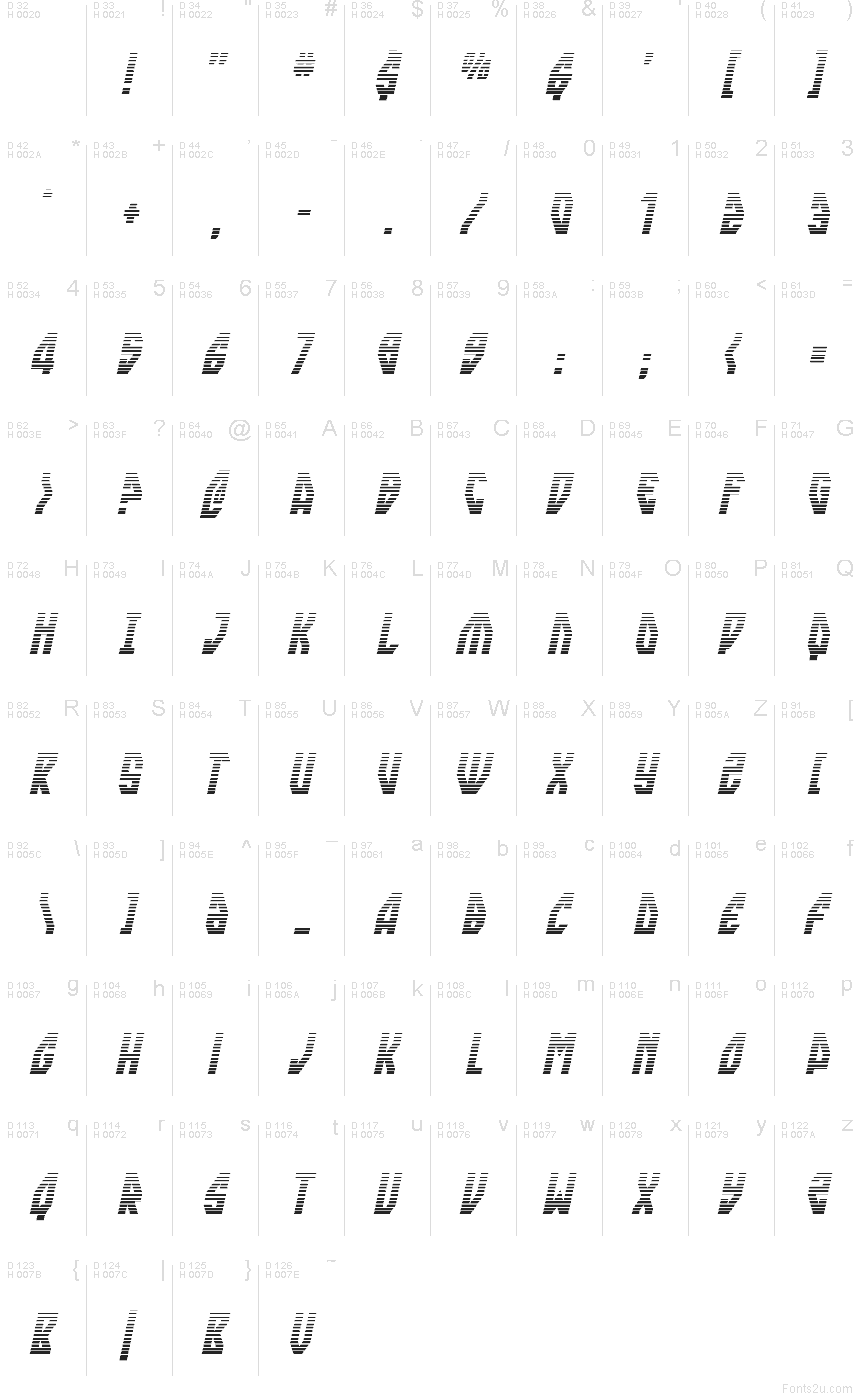
skyrange Gradient Super-Italic font by Daniel Zadorozny of Iconian Fonts races across the page with aggressive forward slant and razor-cut striping, like speed lines carved into steel. In the skyrange Gradient family, the letters feel stretched and aerodynamic, keeping rhythm through clean gaps that read crisp even at big sizes. It is a free techno font, made for motion-heavy branding.
Using skyrange Gradient Super-Italic, your text instantly signals velocity for sci‑fi posters, esports headers, racing flyers, tech event titles, YouTube thumbnails, game UI labels, and futuristic product packaging. Set it large with generous tracking so the stripes breathe, then pair it with a quiet geometric sans for body copy-this free font hits hardest when it’s the headline.